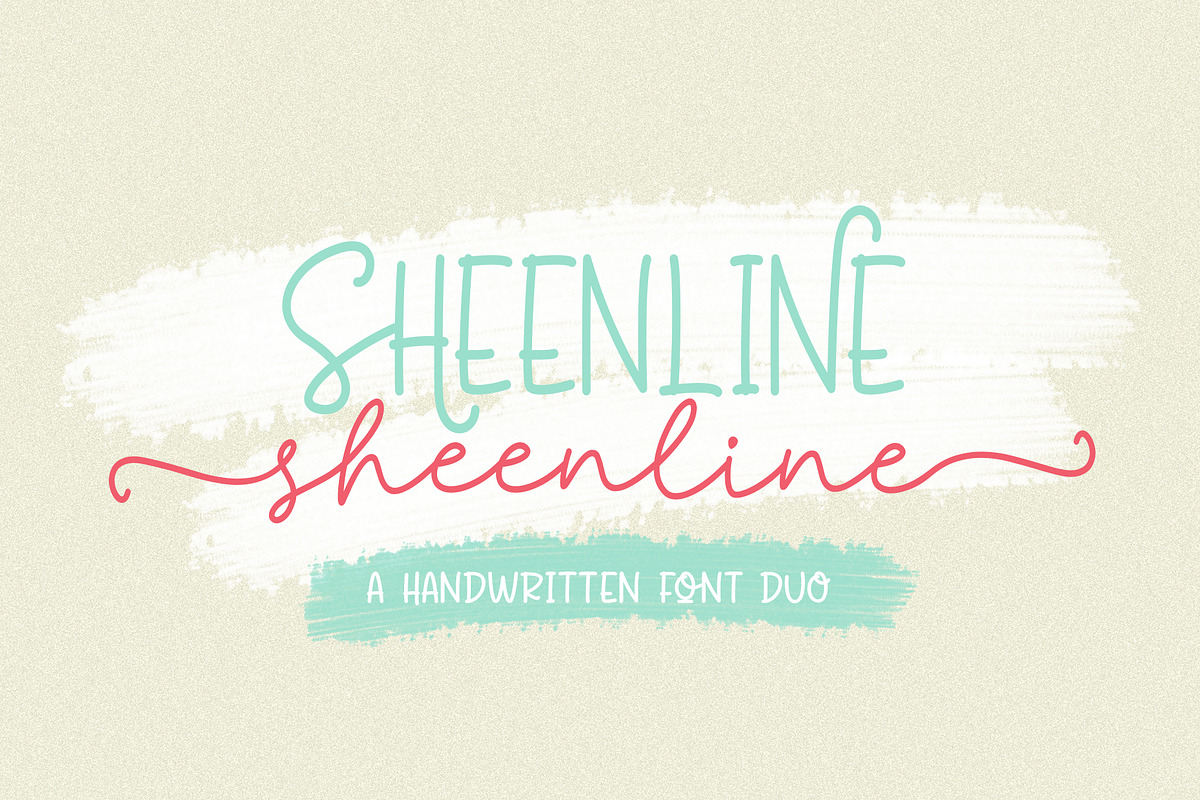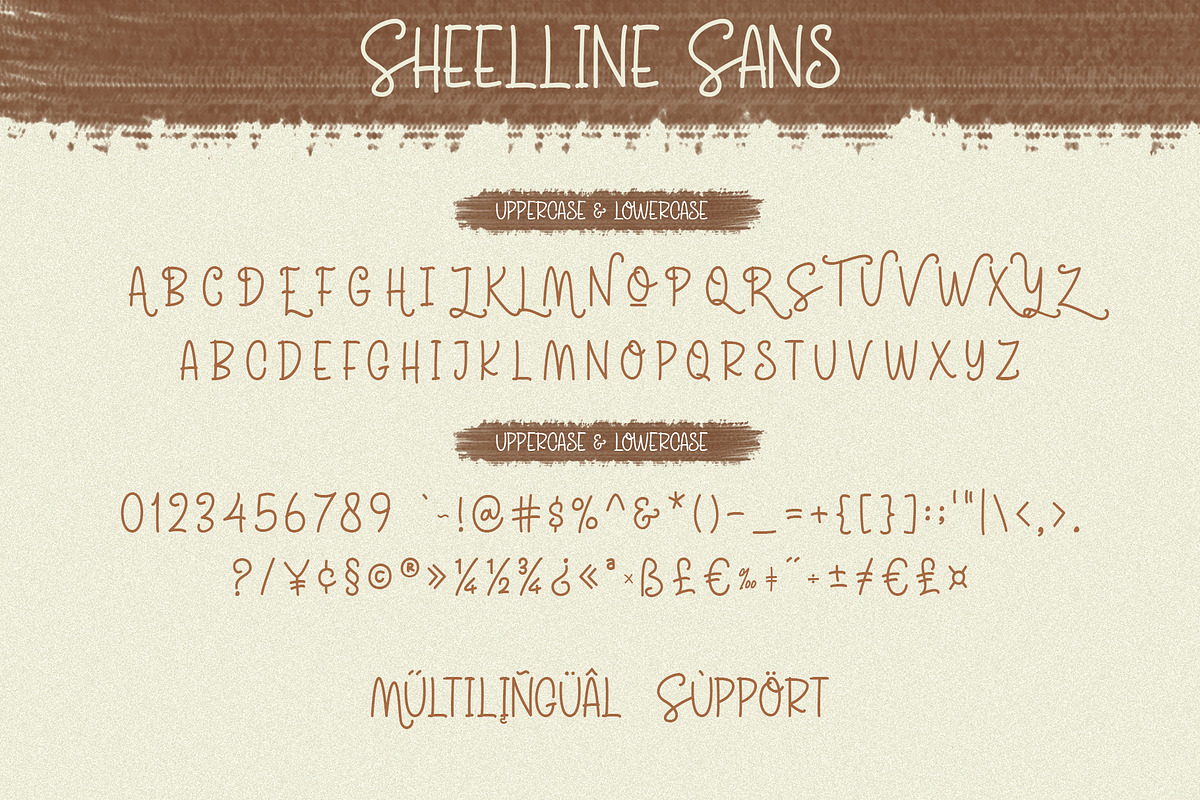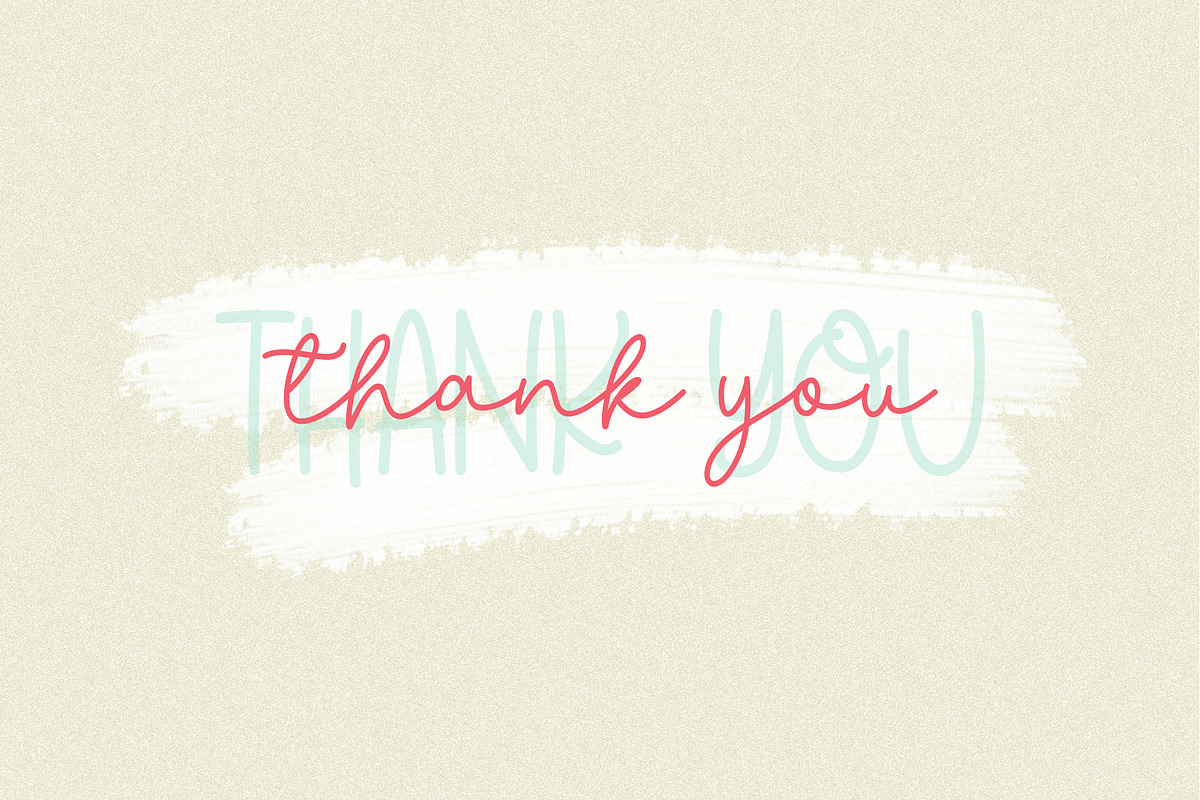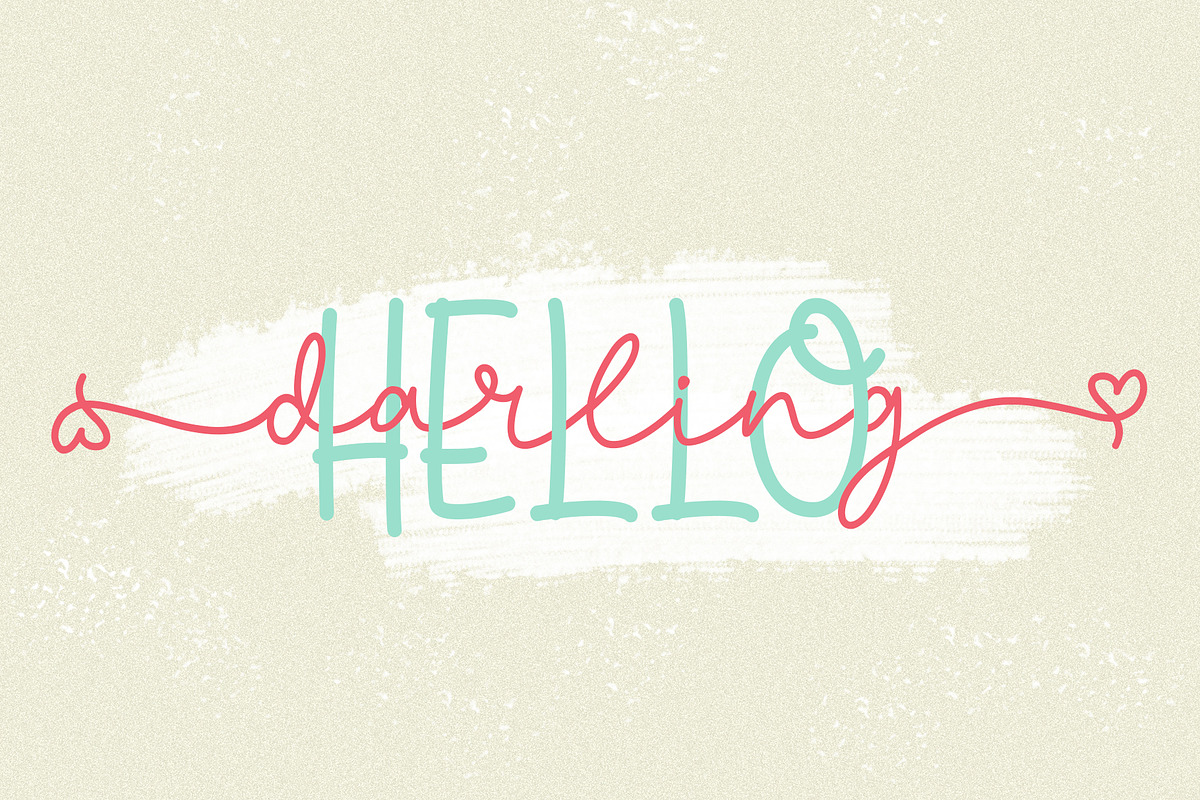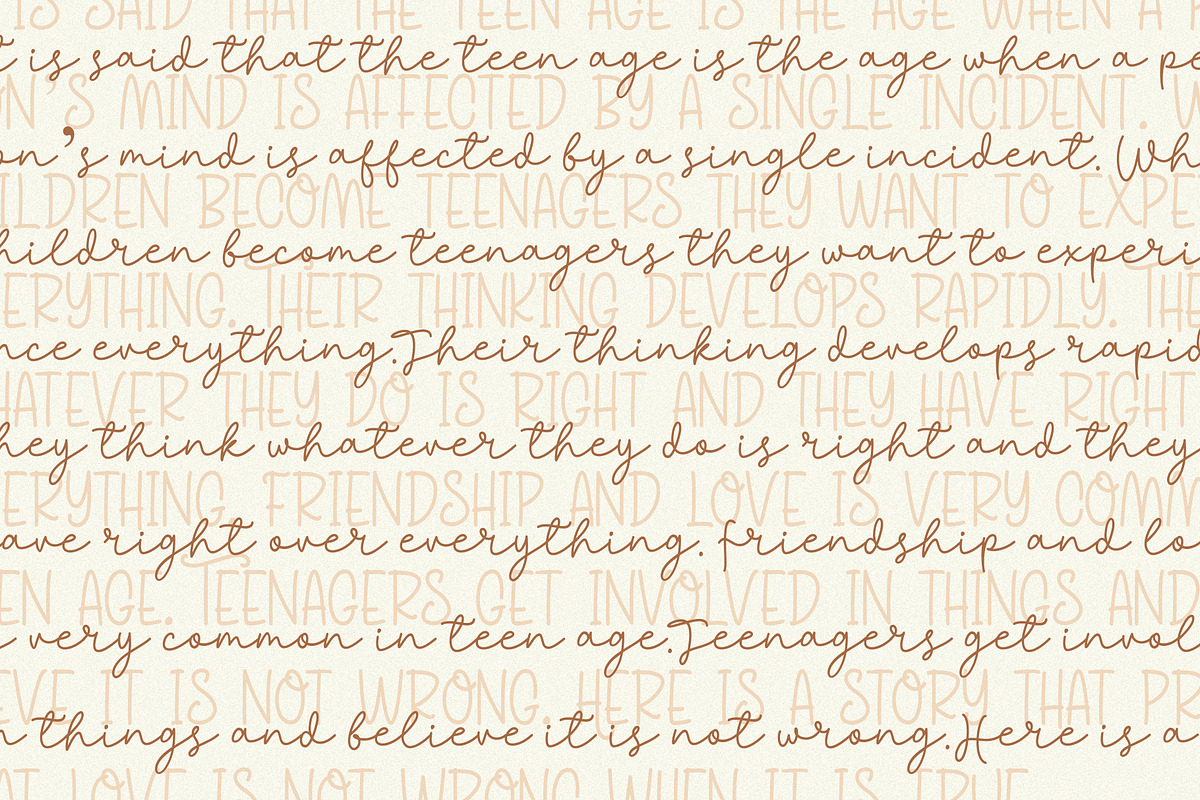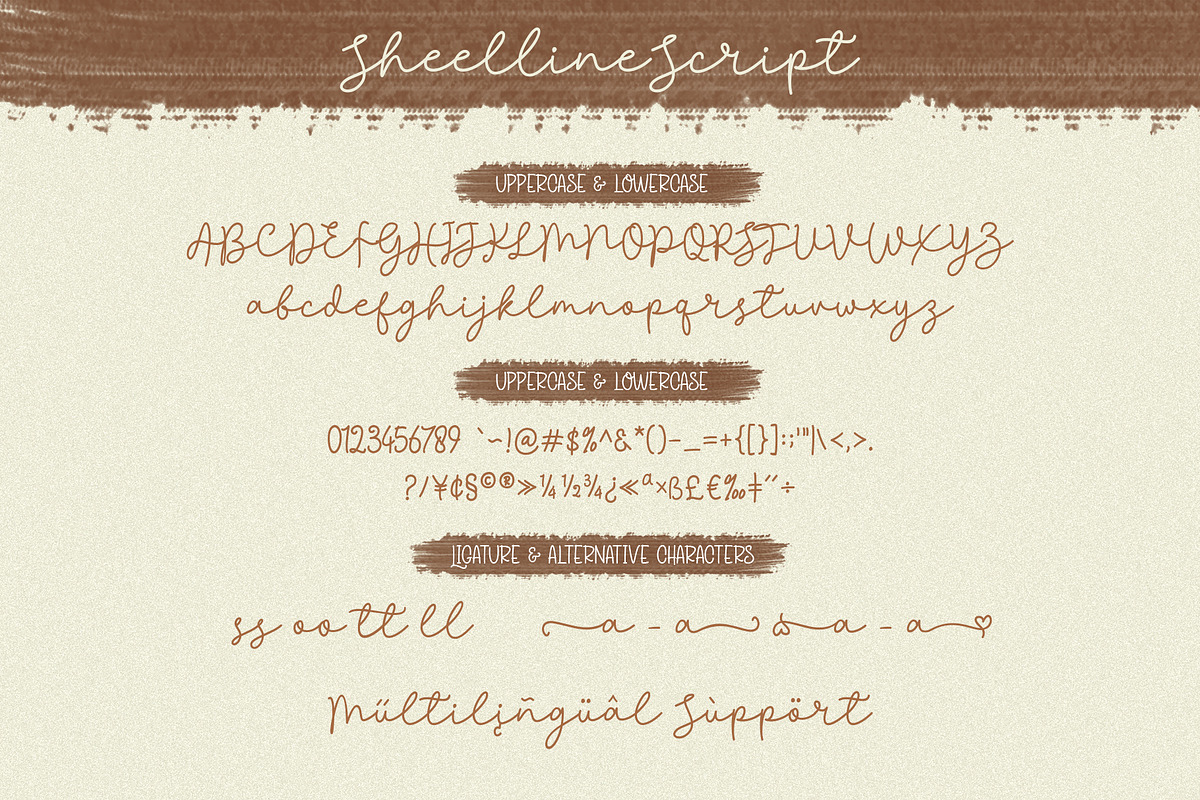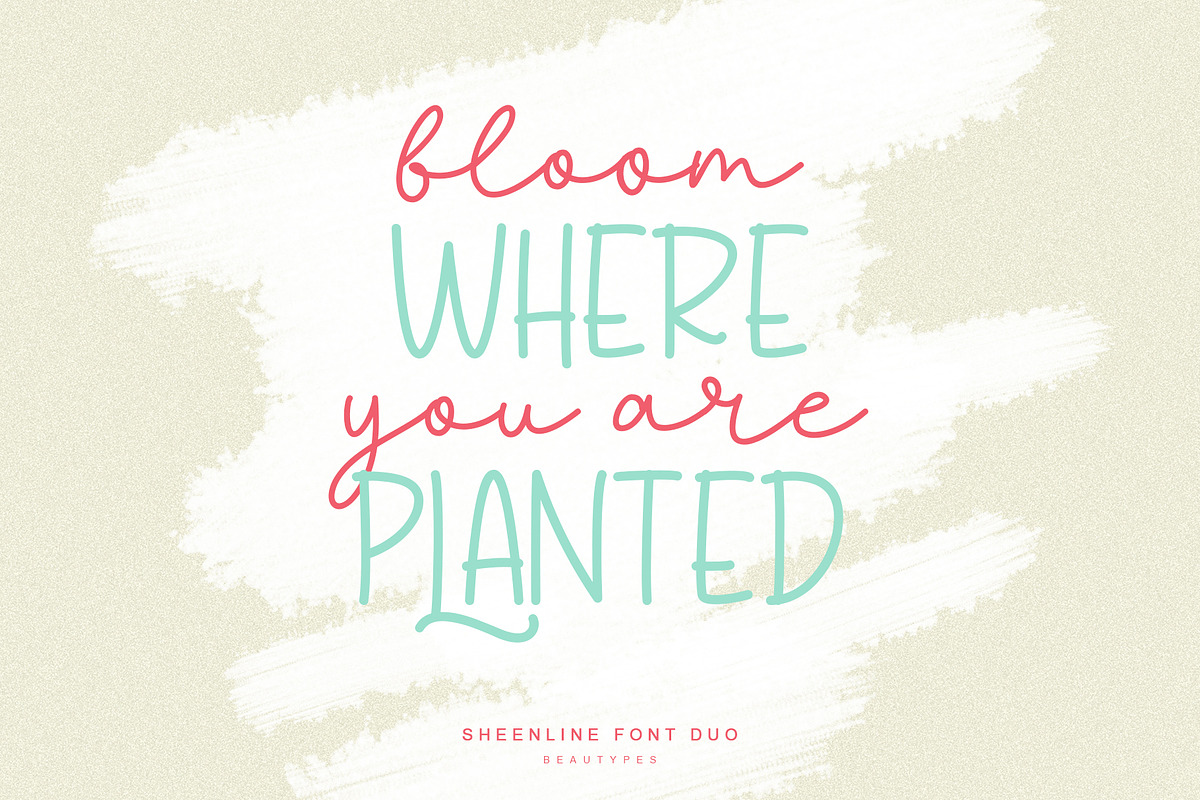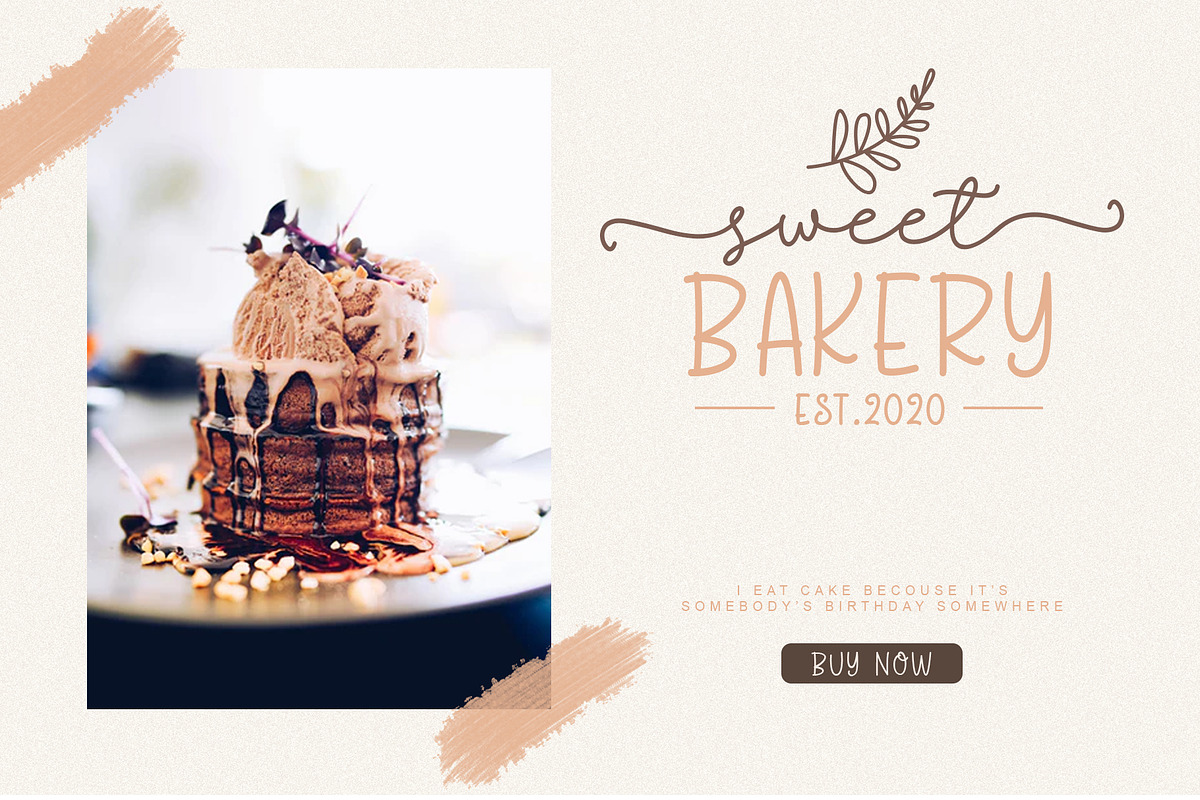
Sheenline - Cute Monoline Font Duo
Sheenline is a cute handwritten monoline font duo, you will receive two different fonts that coordinate perfectly together! Sheenline font is perfect for branding projects, logo, wedding designs, social media posts, advertisements, product packaging, product designs, label, photography, watermark, invitation, stationery, and any projects that need cute beautiful modern handwriting taste.